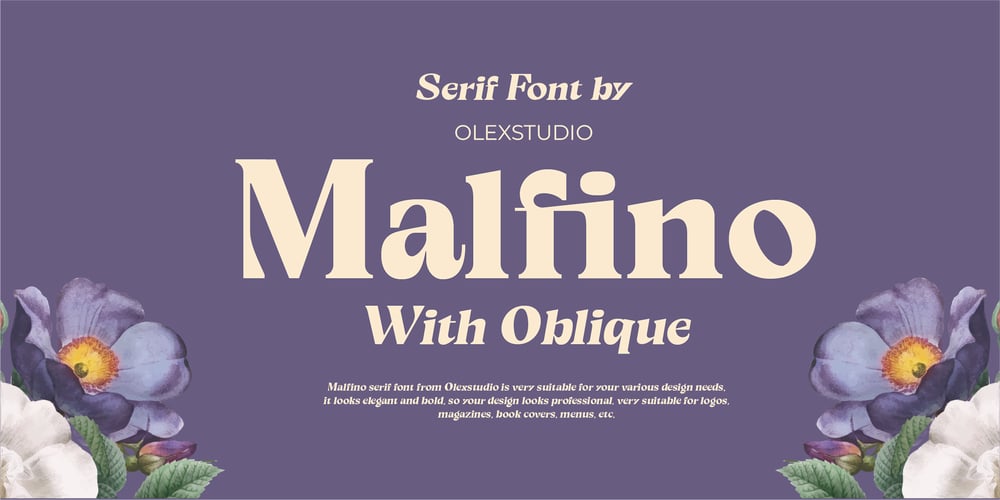
Malfino Olstd
Malfino Olstd font
Malfino Olstd Font Family was designed by Firman Syah and published by Olexstudio. Malfino Olstd contains 2 styles and family package options. Malfino Olstd – Serif Font will look gorgeous on all your designs, invitation, poster design, book design, branding materials, logo’s, and all project design other.WHAT’S INCLUDEDMalfino Olstd -Serif Font contains standard characters, Lowercase, Uppercase, numbers, punctuation, ligatures and international glyphs. Thanks 🙂